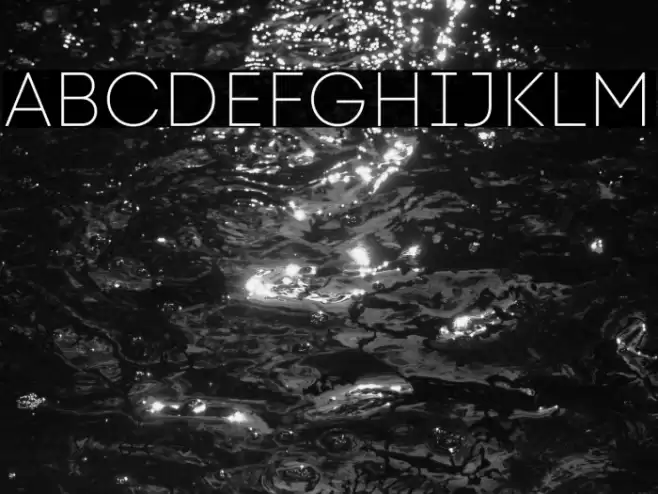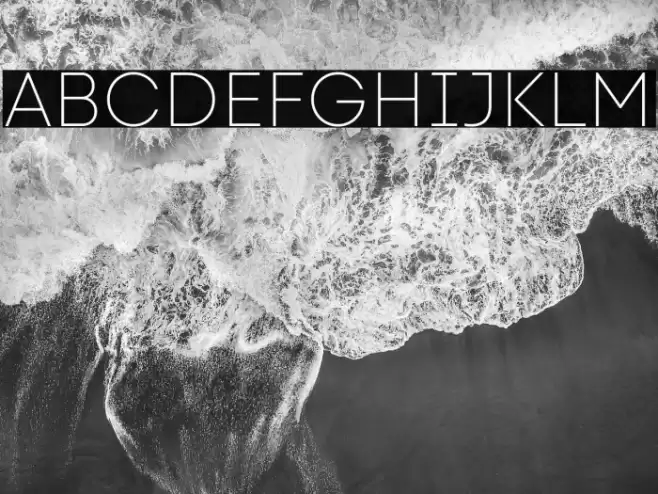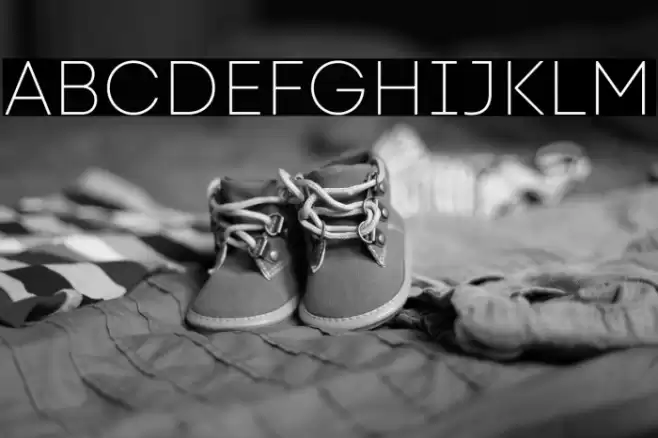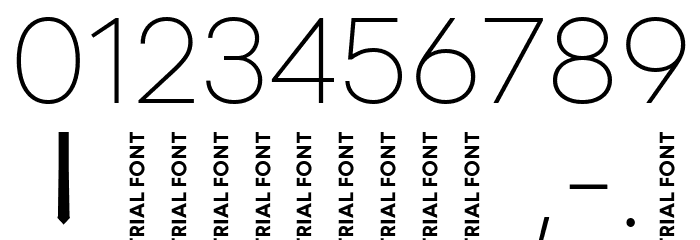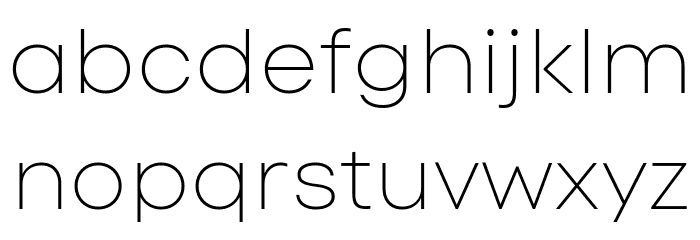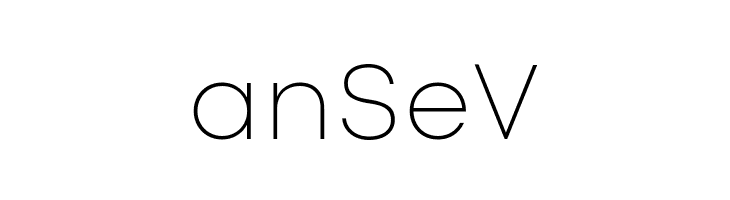
Code Next-Trial Thin Font
Code Next-Trial Thin Description
This font features a clean and minimalist design with a geometric structure. The characters are evenly spaced, providing a balanced and harmonious appearance. The thin strokes give it a modern and elegant look, making it suitable for contemporary design projects. The uppercase and lowercase letters are consistent in style, with smooth curves and straight lines. The numerals are clear and legible, maintaining the font's overall sleek aesthetic. Special characters are included, ensuring versatility for various applications.
A modern, geometric font with thin strokes and balanced spacing from Uncategorized fonts.
- Proposed Projects: Ideal for branding, web design, editorial layouts, and minimalist posters.